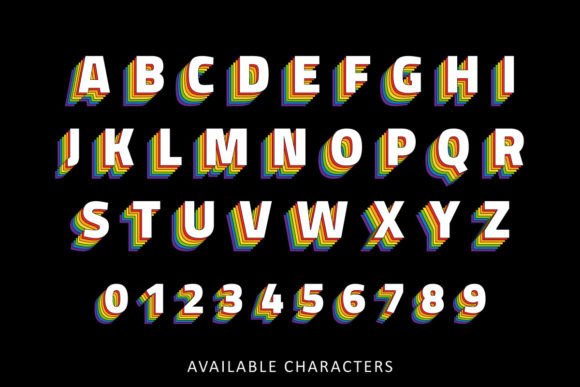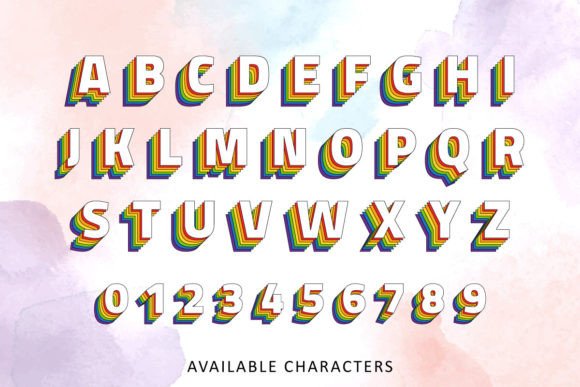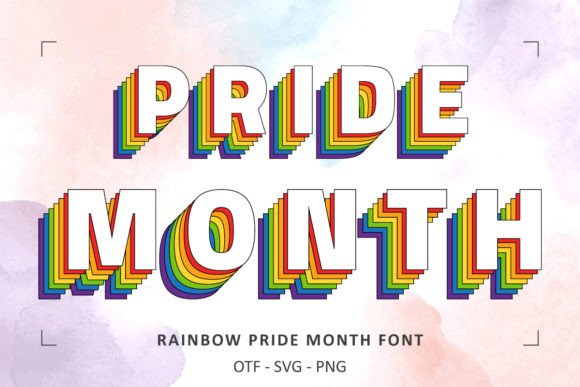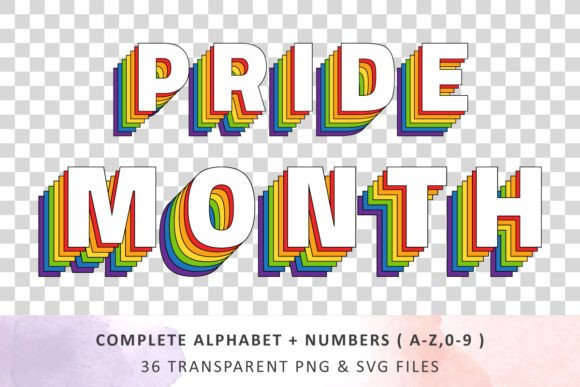
Introduction to Rainbow Pride Month Font
Rainbow Pride Month.
Inspired by the design language of the iconic Rainbow Flag for you to use in your upcoming Pride Month-themed projects It’s ideal for anything ranging from t-shirts, book designs, restaurant menus, blog writing, and greeting cards to stickers, or anything that needs a casual touch.
Key Features of Rainbow Pride Month Font